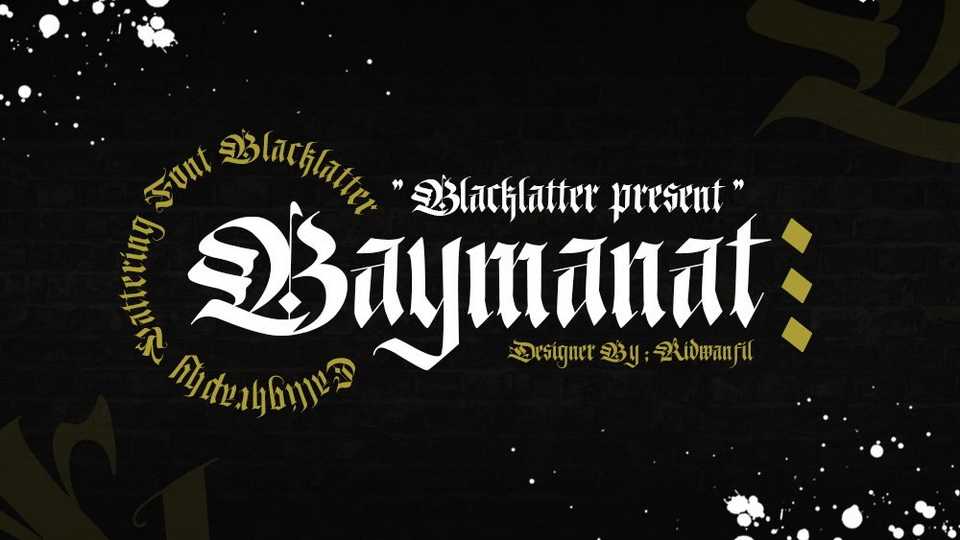
Download Baymanat font, cool authentic blackletter typeface. Baymanat font is suitable for Branding project such as logo design, label product, t-shirt printing and much more.